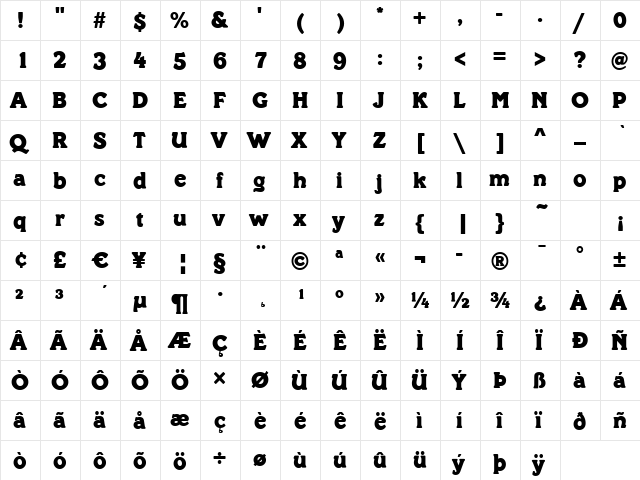
Pickering Regular
Design Context for Pickering Typeface
Pickering takes a measured approach to typography — its balanced proportions and neutral character make it a reliable workhorse for both digital and print work.